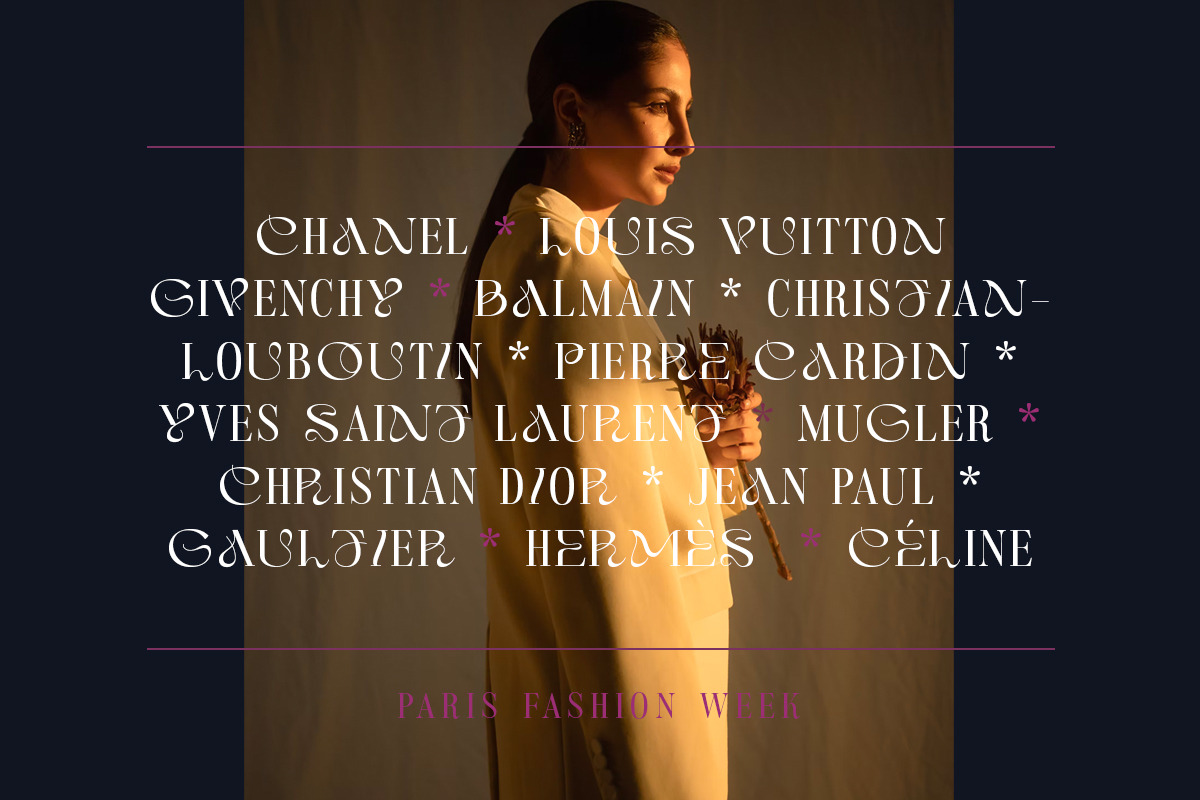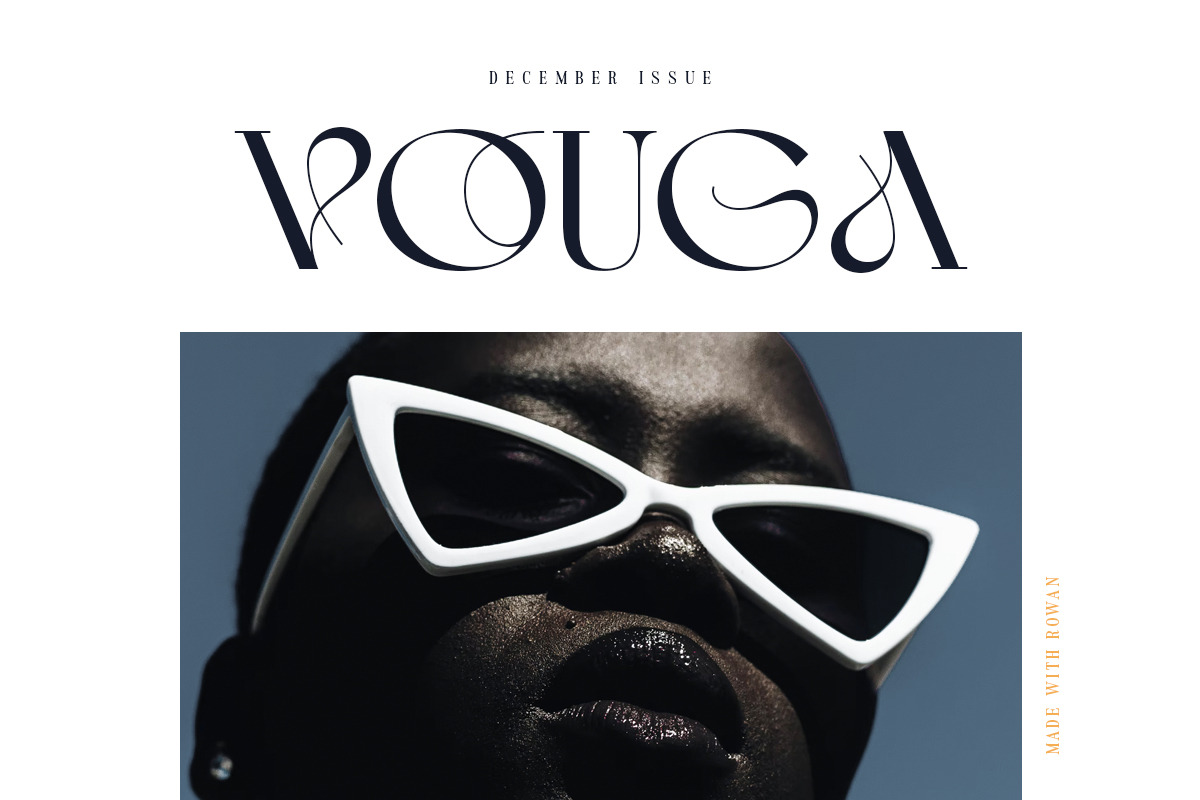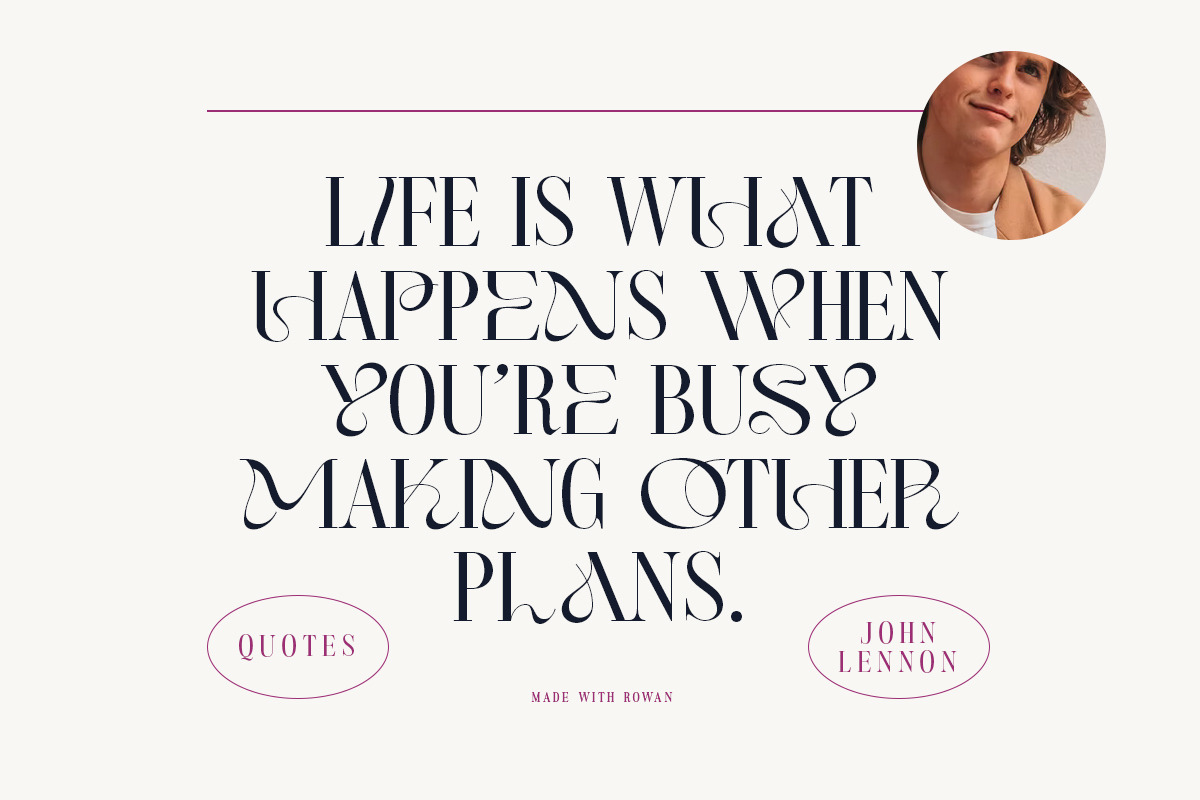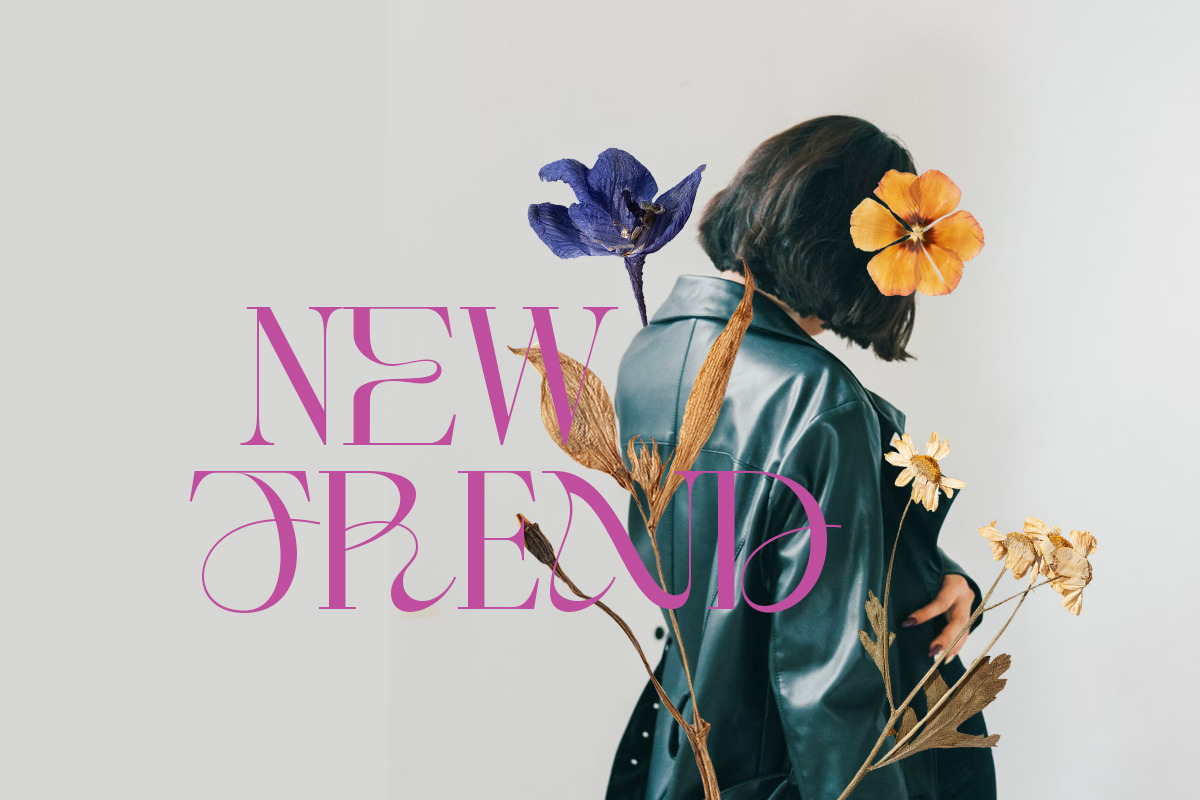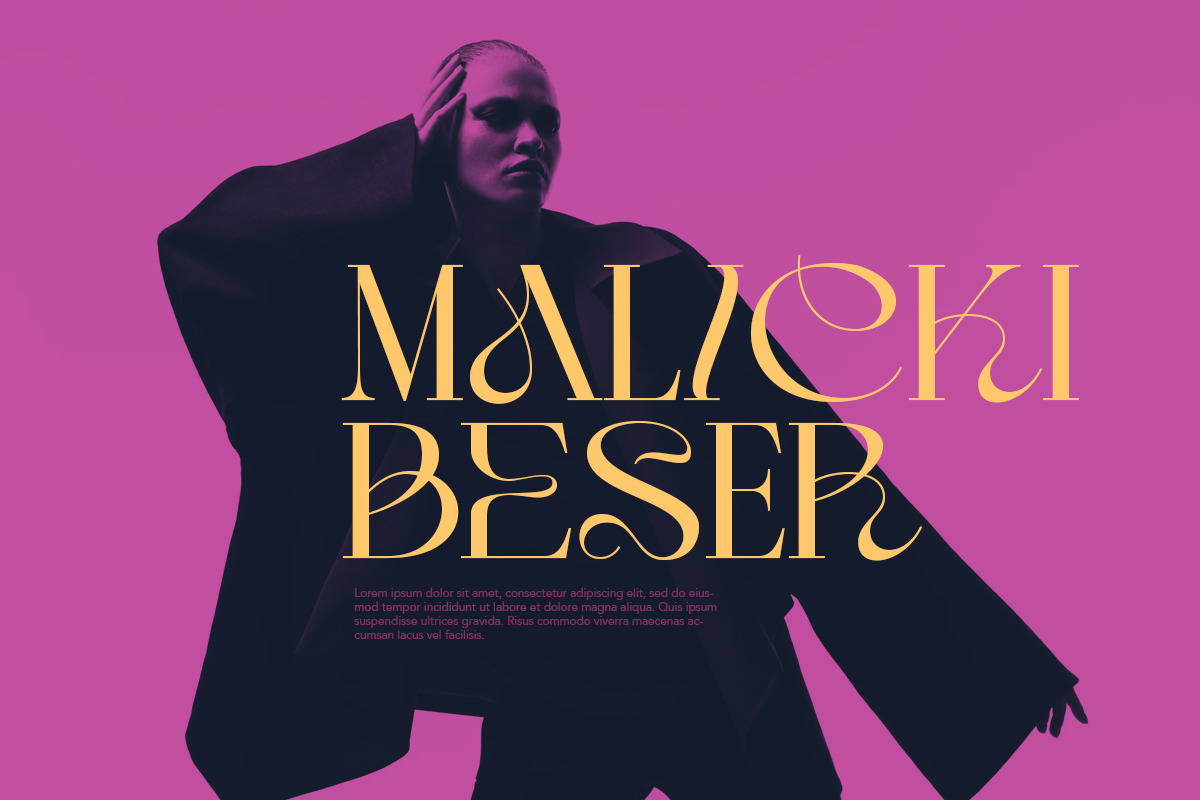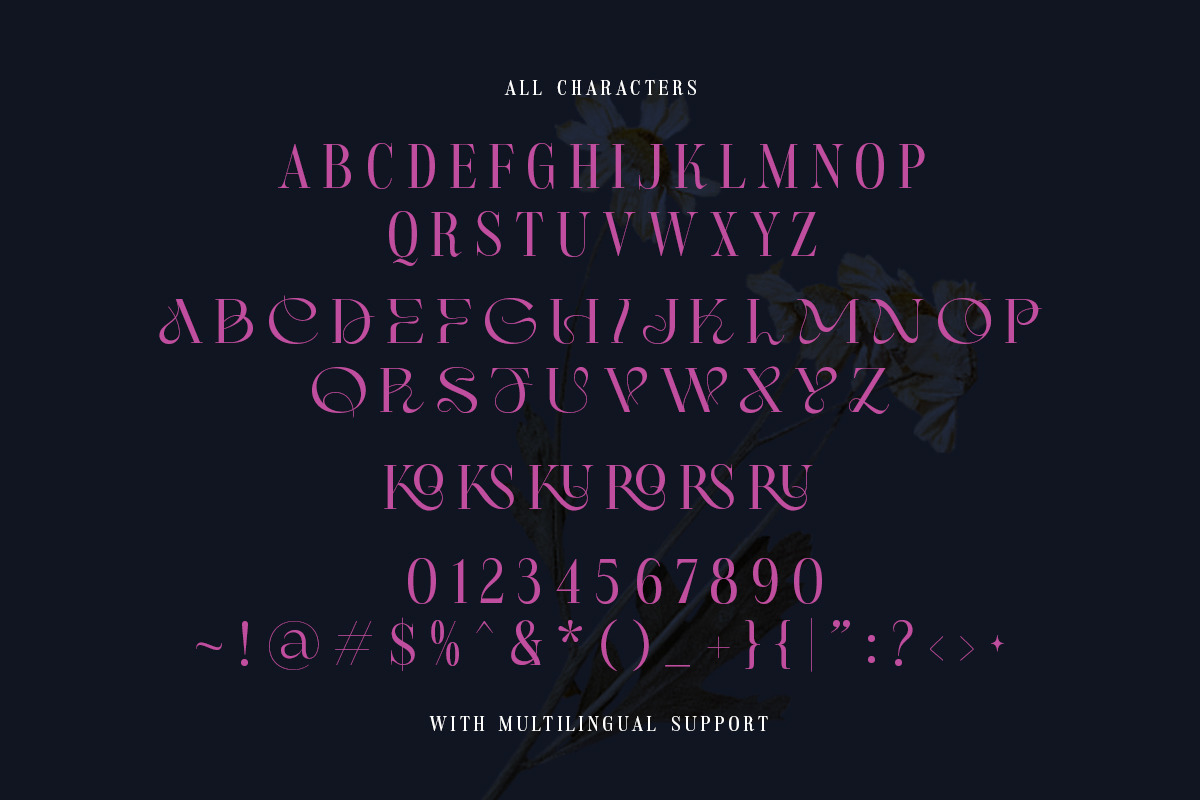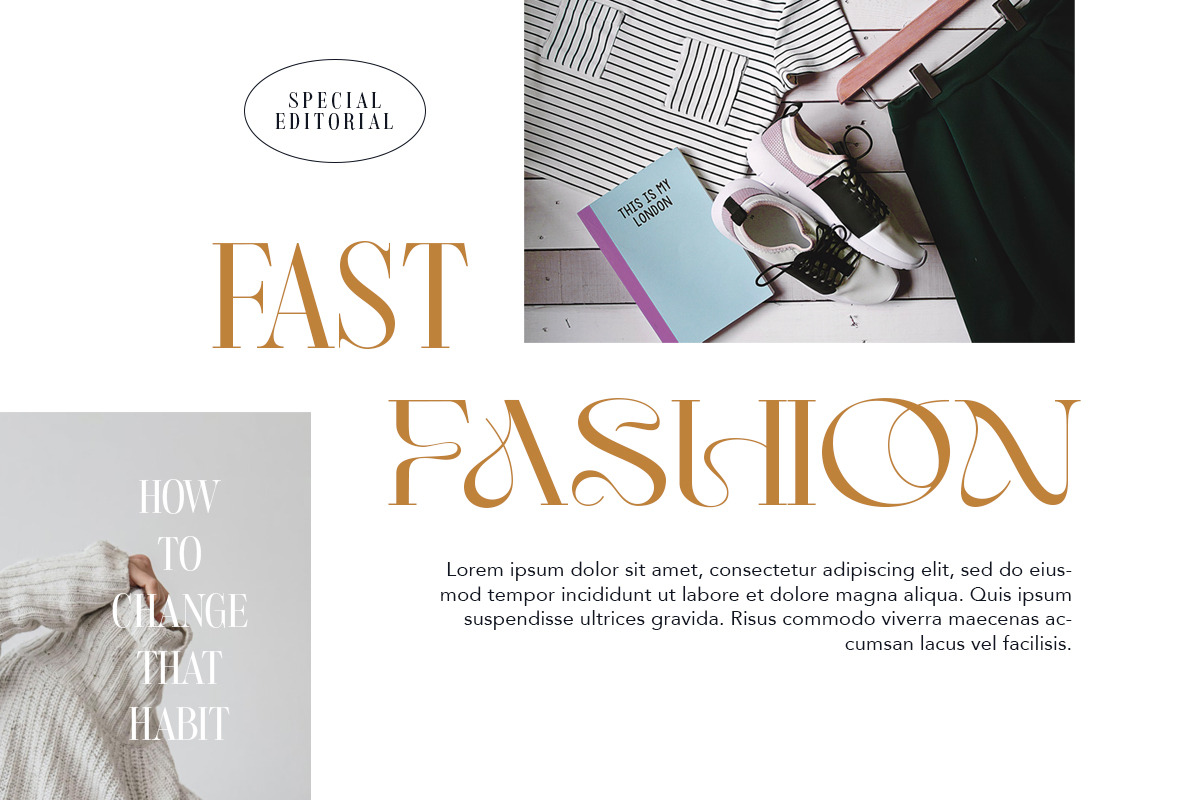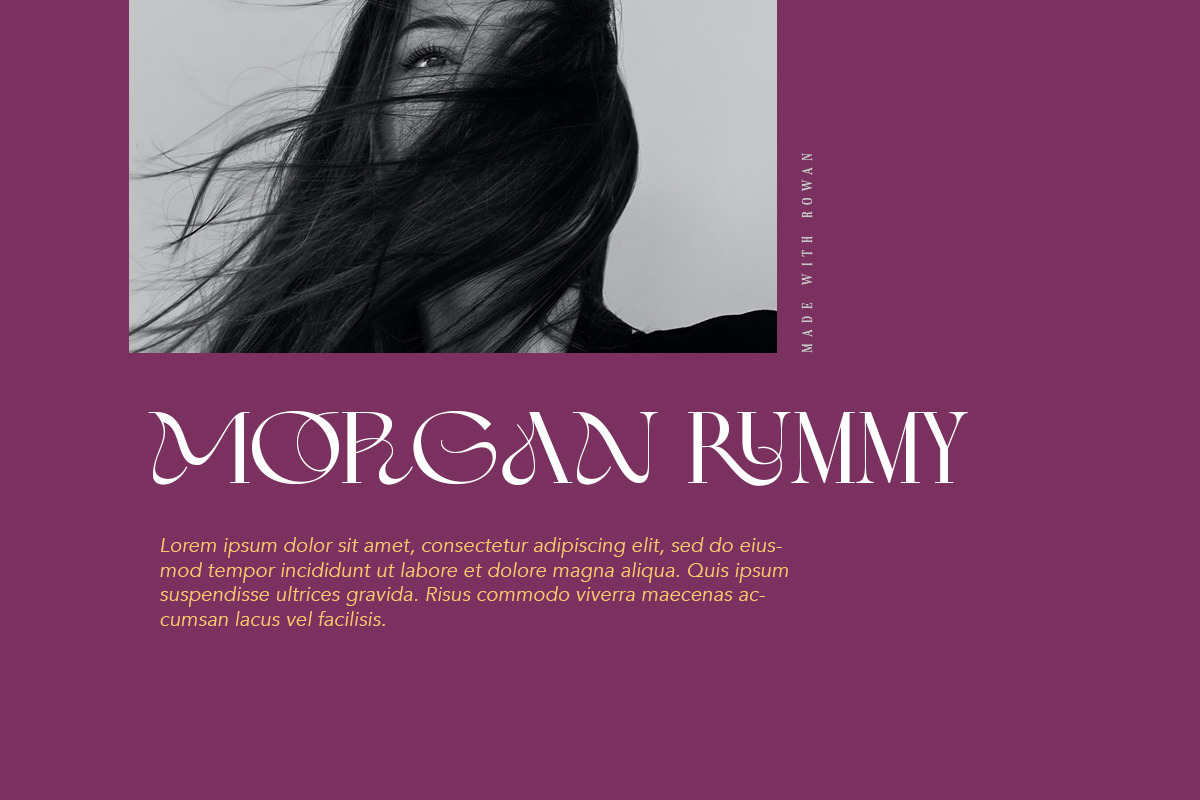
Rowan - Sophisticated Serif
Rowan is a sophisticated serif with unique letterform. This typeface has been made carefully to make sure its premium quality and luxury feel. The letterform makes this typeface unique and stands out rather than the regular serif font. Very suitable for logo, headline, tittle, and the other various formal forms such as invitations, labels, logos, magazines, books, greeting / wedding cards, packaging, fashion, make up, stationery, novels, labels or any type of advertising purpose.
- alternates